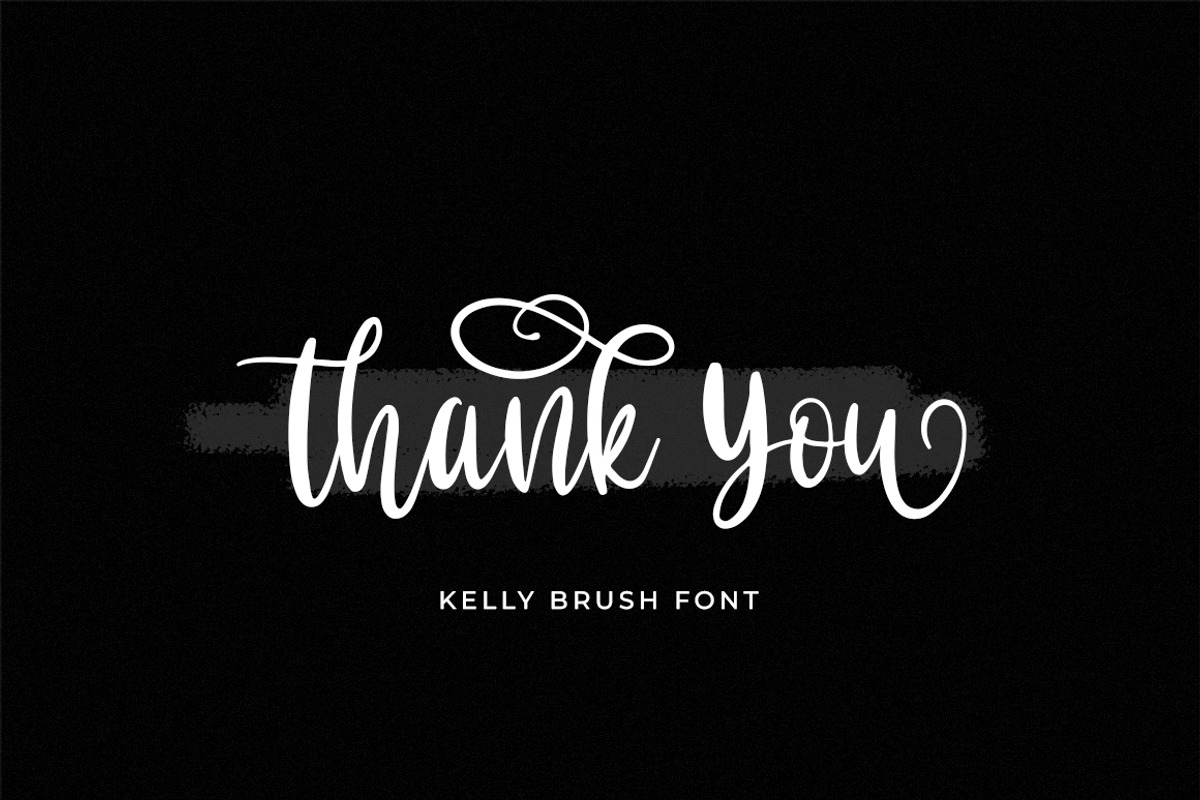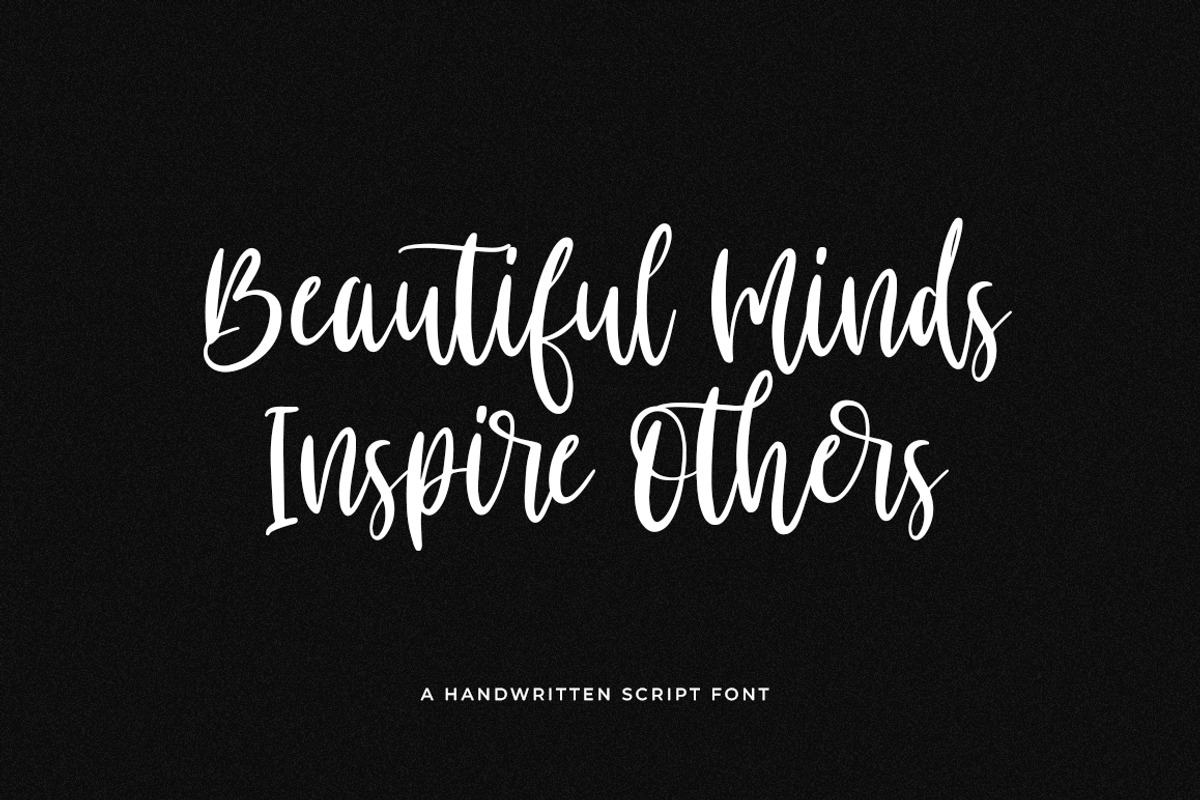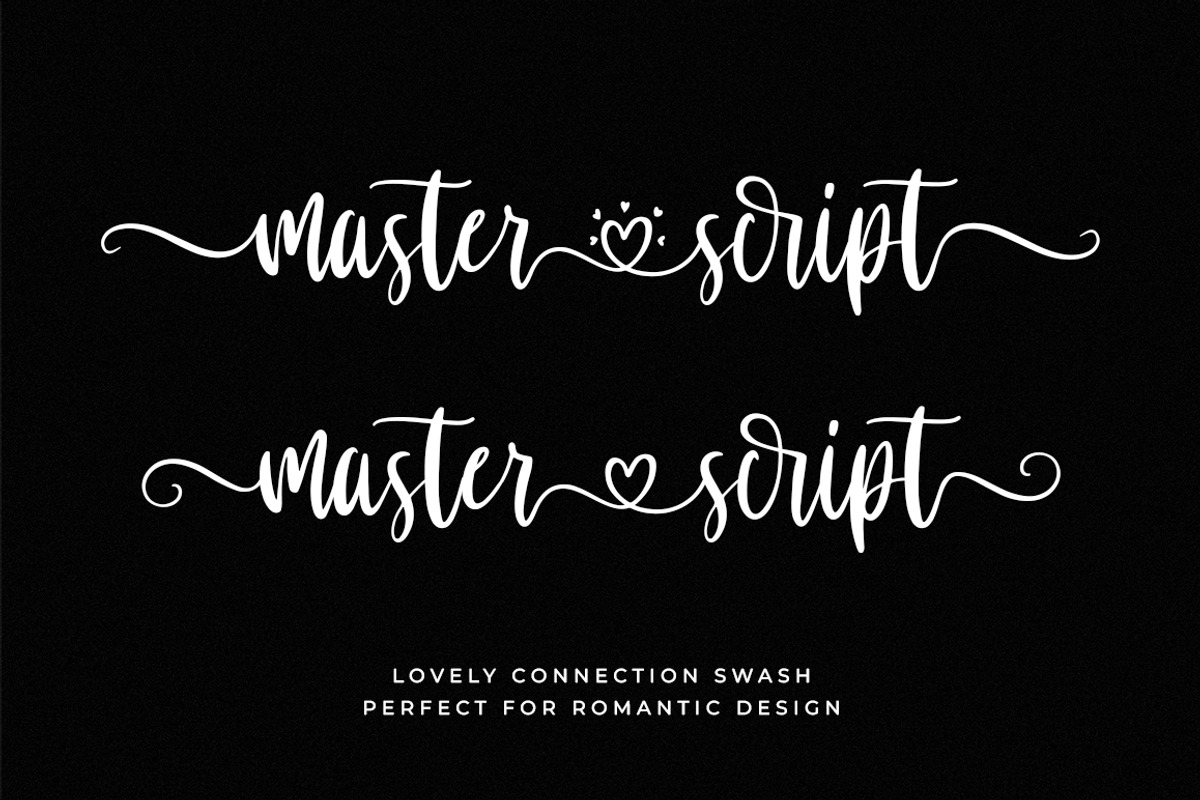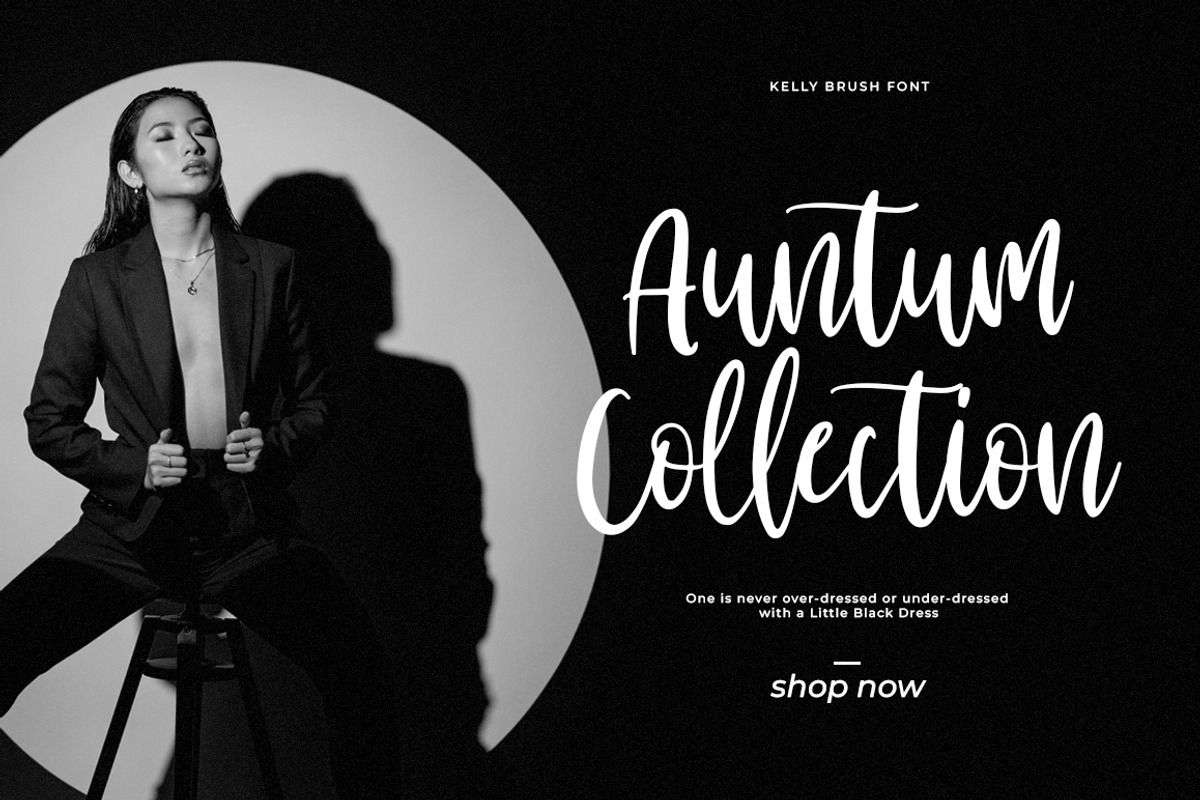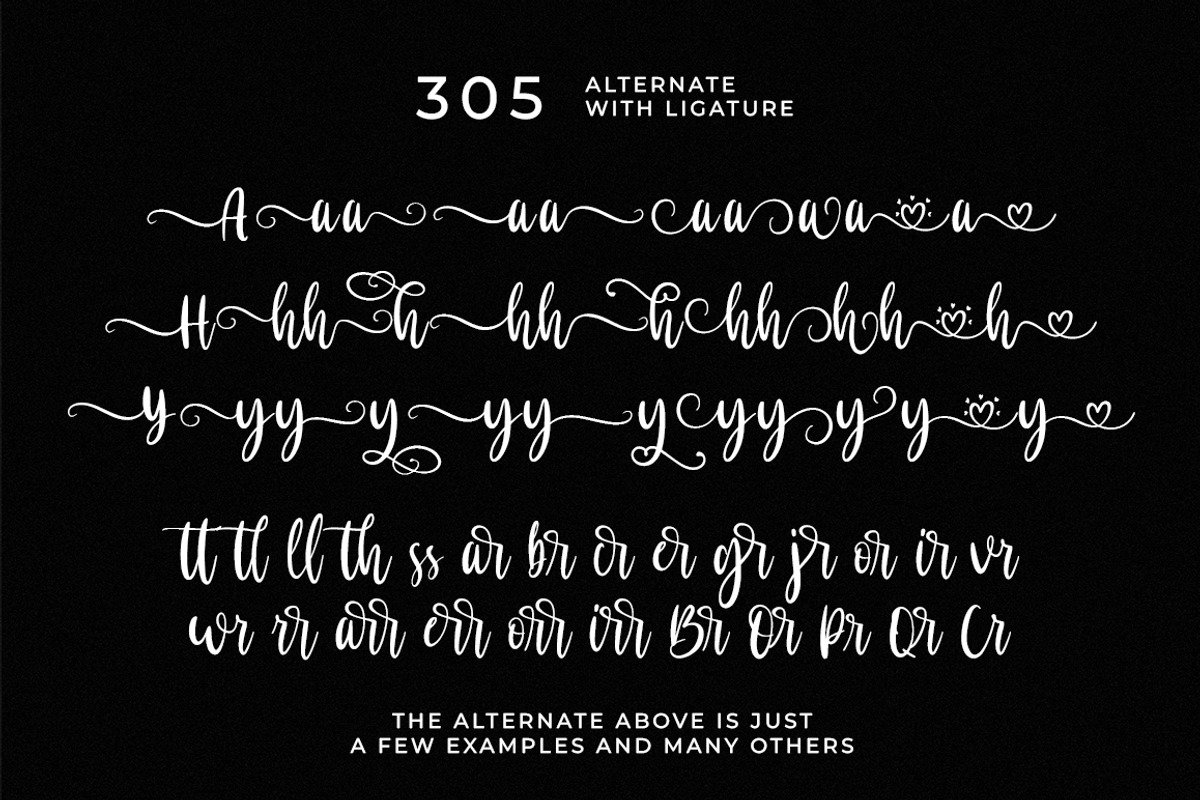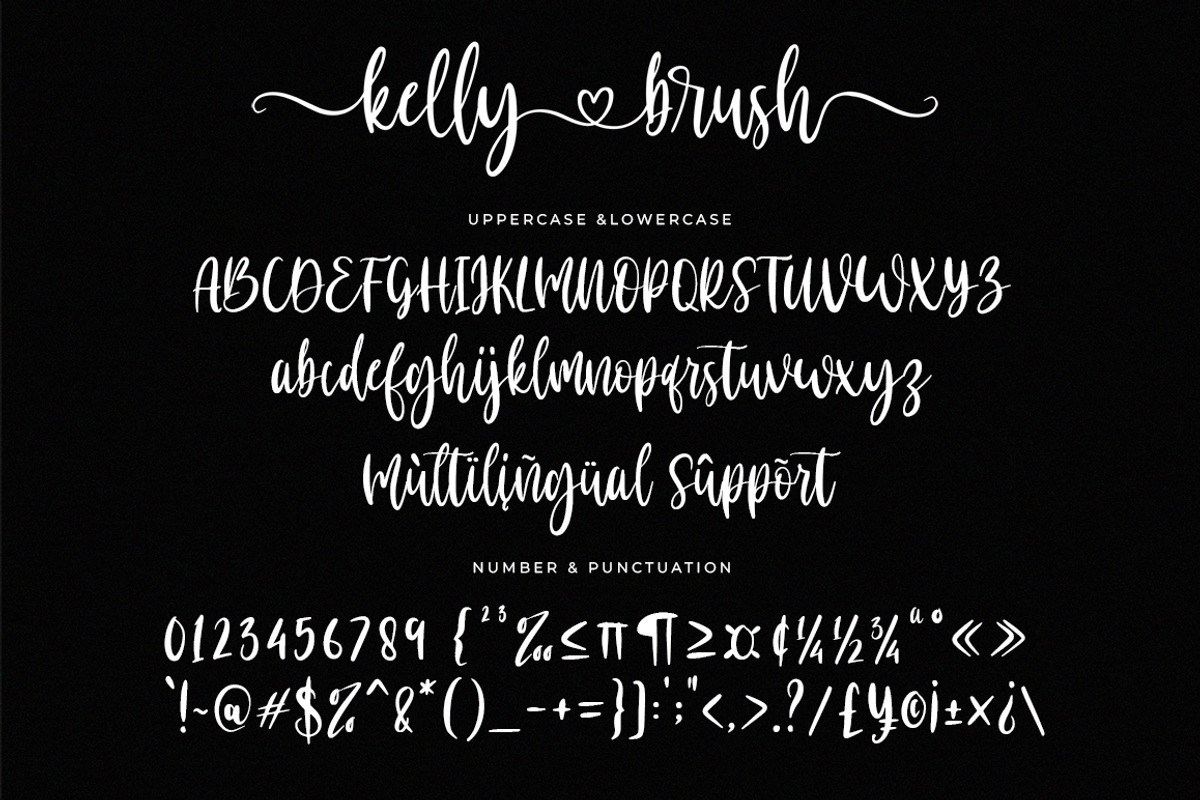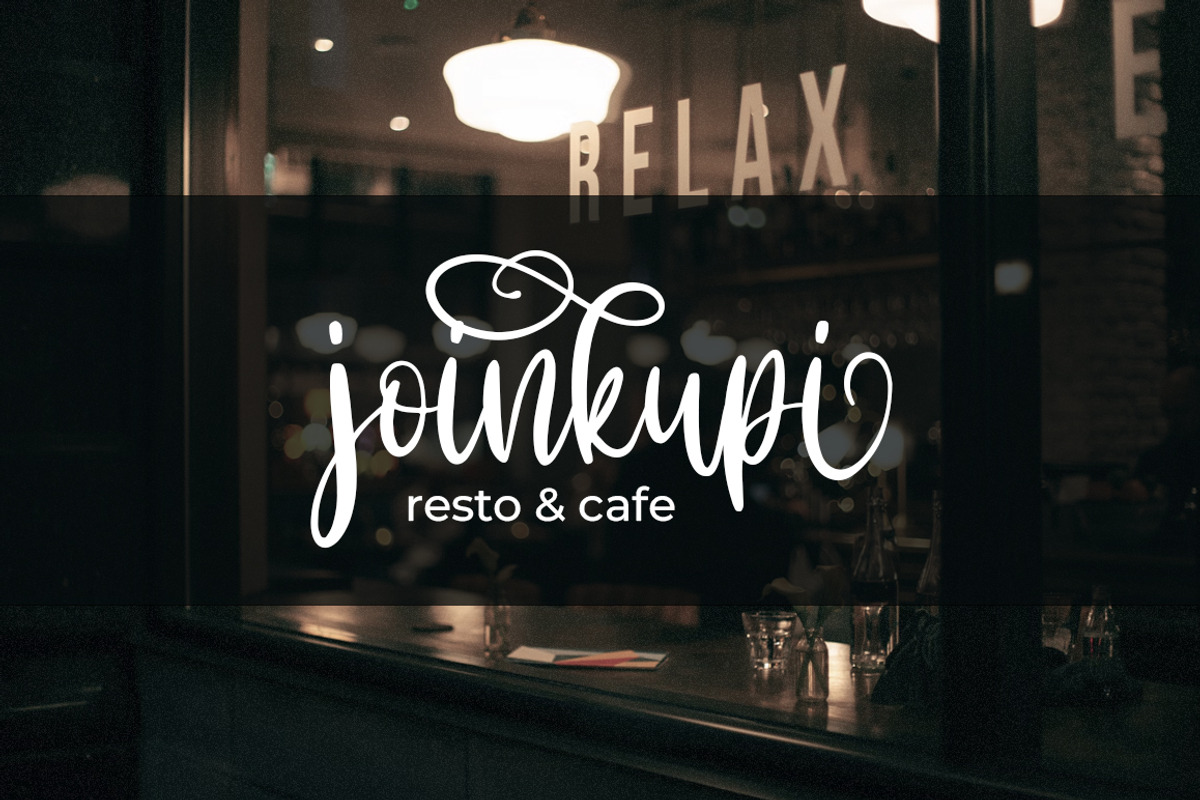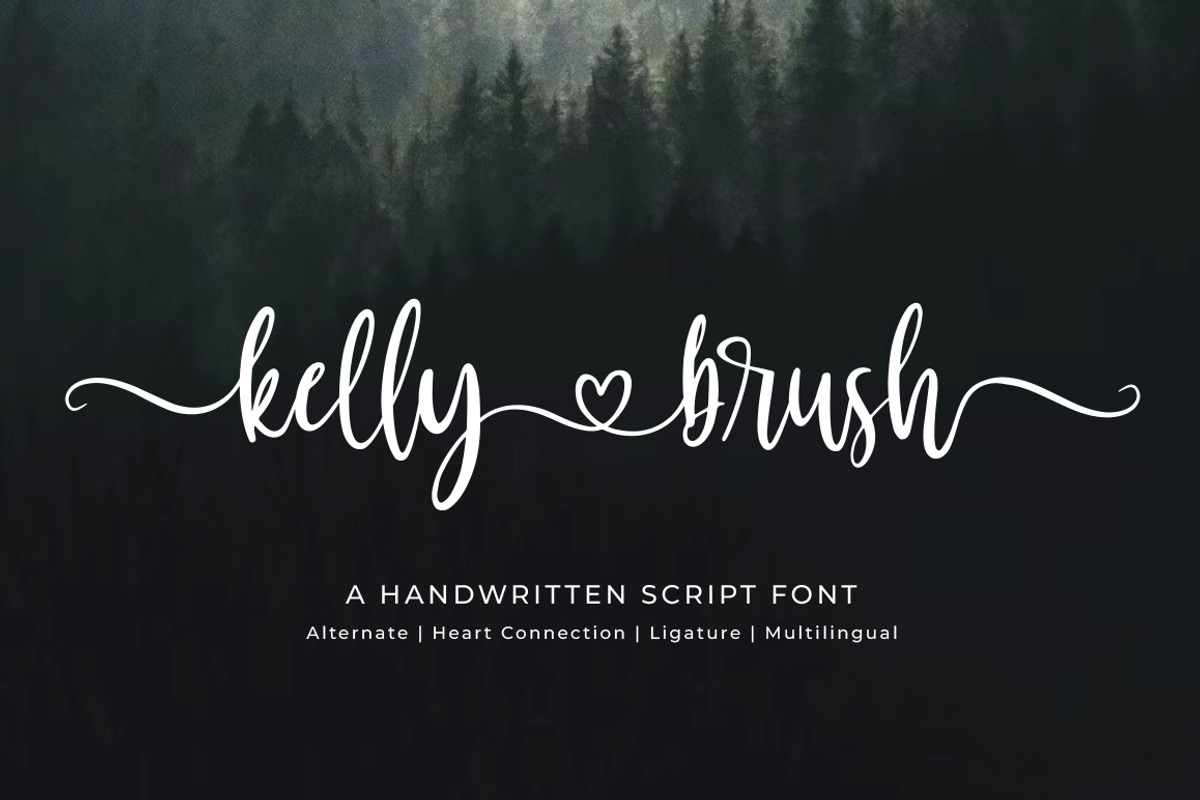
Kelly Brush - modern handwritten
Kelly Brush is a modern handwritten brush font with special heart characters. Fall in love with its authentic feel and use it to create gorgeous wedding invitations, beautiful stationary art, and cute greeting cards.